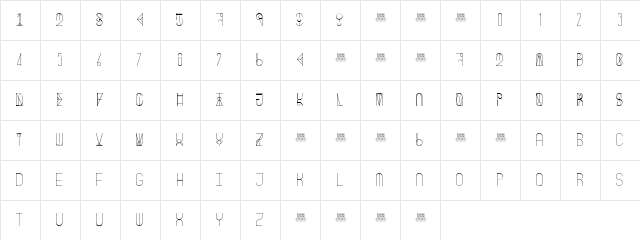
Freak Show Light
Design Context for Freak Show Typeface
Freak Show is a composed and adaptable typeface that performs quietly and consistently across a wide range of design contexts. The delicate stroke weight brings airiness and refinement to layouts.